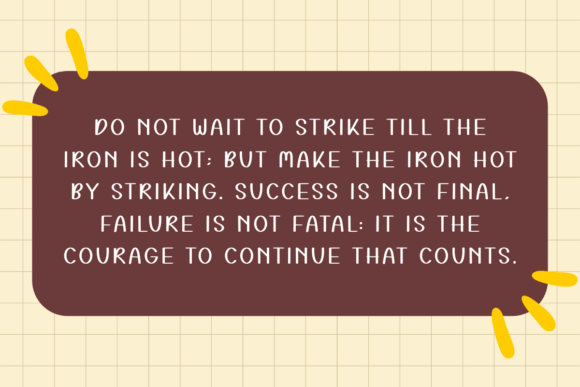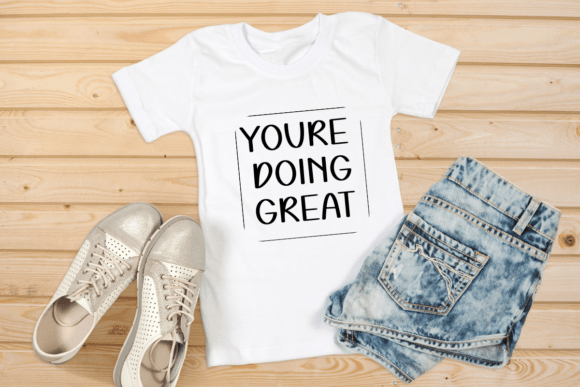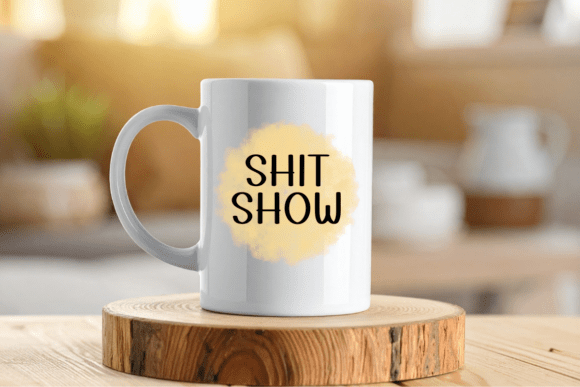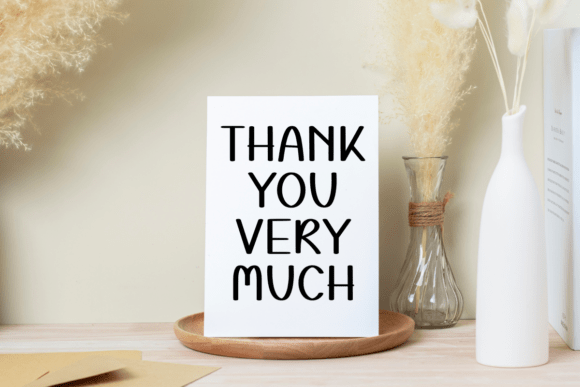
Who hasn’t sat at their desk, surrounded by scraps of paper, scribbled notes, and half-finished projects, desperately searching for that perfect font to elevate their design? I know I have. And sometimes, it’s not just about finding the right font, but about capturing the essence of a particular style or mood. For designers and creatives alike, the right font can make all the difference between a bland design and a show-stopper.
Enter the Banana Lemonade Font – a delightful, fancy handwriting font that’s perfect for adding a touch of whimsy to your designs. With its cute and playful style, it’s a great choice for quotes, stickers, mugs, and more. And the best part? It’s incredibly versatile, making it a valuable addition to any designer’s toolkit.
Banana Lemonade Font Key Features
- Font Family: Banana Lemonade Font is a unique, hand-drawn font family with a playful and whimsical feel.
- Character Set: Includes a wide range of characters, including uppercase and lowercase letters, numbers, punctuation marks, and special characters.
- Unique Characteristics: Features a distinctive, hand-drawn style with subtle imperfections, giving it a charming and organic feel.
Banana Lemonade Font Review
As a designer, I was initially drawn to the playful and whimsical vibe of the Banana Lemonade font. ✨ The unique combination of curved lines and rounded edges gives it a friendly, approachable feel that’s perfect for kids’ branding, food packaging, or any project that needs a lighthearted touch. ✨ The font also comes in a range of weights and styles, making it versatile for a variety of design needs.
However, there are some limitations to consider: ⚠️ The font can be quite busy, especially in larger text sizes. This can make it difficult to read, particularly for those with visual impairments. ⚠️ Additionally, the font’s irregularities can be distracting if used extensively in a single design. ⚠️ Finally, the font may not be suitable for formal or professional branding due to its casual, childlike feel.
Overall, I think the Banana Lemonade font is a fun and creative option for designers looking to add a bit of personality to their projects. While it may not be suitable for every design need, it’s definitely worth considering for the right project.
Here are some pros and cons:
- ✨ Unique, playful design
- ✨ Versatile range of weights and styles
- ⚠️ Can be busy and difficult to read in larger text sizes
- ⚠️ Irregularities can be distracting
- ⚠️ May not be suitable for formal or professional branding
The Banana Lemonade font is a playful and whimsical font that is perfect for:
1. Creating eye-catching social media graphics.
2. Designing menus and signage for restaurants and cafes.
3. Adding a touch of personality to presentations and reports.
For best results, use the Banana Lemonade font in combination with bright and bold colors to create a visually appealing design.
Alternatives to Banana Lemonade Font
Cream Soda Script
Cream Soda Script is a playful, cursive font that is reminiscent of handwritten script. It is perfect for use in branding, logos, and titles where a whimsical feel is desired. Compared to Banana Lemonade Font, Cream Soda Script has a more elegant and sophisticated feel, making it suitable for more formal applications.
Wild West
Wild West is a bold, western-inspired font that is ideal for use in headings, titles, and signage. It has a rugged, adventurous feel that is perfect for creating a sense of excitement and energy. Compared to Banana Lemonade Font, Wild West has a more dramatic and attention-grabbing feel, making it suitable for use in action-packed or dramatic contexts.
Great Vibes is a modern, handwritten font that is perfect for use in branding, logos, and titles where a fun and casual feel is desired. It has a relaxed, laid-back feel that is reminiscent of handwritten notes and is perfect for creating a sense of approachability and friendliness. Compared to Banana Lemonade Font, Great Vibes has a more modern and trendy feel, making it suitable for use in contemporary contexts.
Are there any specific font pairing recommendations for the Banana Lemonade Font?
Yes, we recommend pairing the Banana Lemonade Font with sans-serif fonts like Open Sans or Lato for a clean and modern look. You can also pair it with serif fonts like Merriweather or Georgia for a more traditional look. Experiment with different font combinations to find the perfect pairing for your design project.